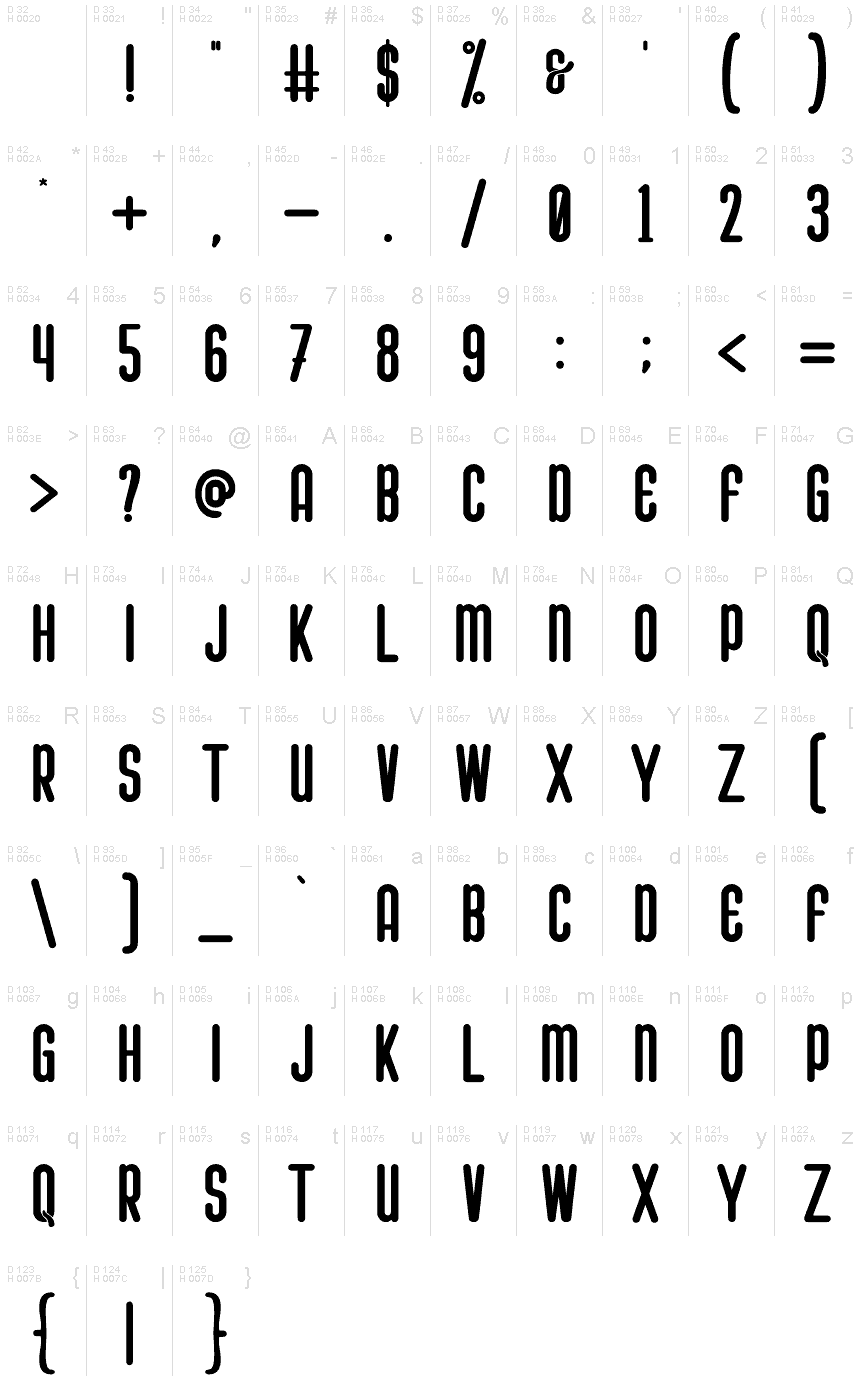
Belarus
Belarus font by Skiiller Studio is a condensed sans serif font with retro, decorative shapes. Inspired by the letterforms of old Soviet Belarus signs to elevate modern design standards, each letter proudly showcases unique smooth flowing lines and soft rounded edges. The geometric uniformity leads the font to an ideal place in minimalistic branding which requires simple and authentic pieces at once.
This free display font was made for packaging projects, magazine titles, finance books covers, website headers, creative ads, merchandise items or graphic posters & flyers. Create outstanding logotypes that are recognized from first sight for your companies or translate beauty ideas that were always running wild in your mind.